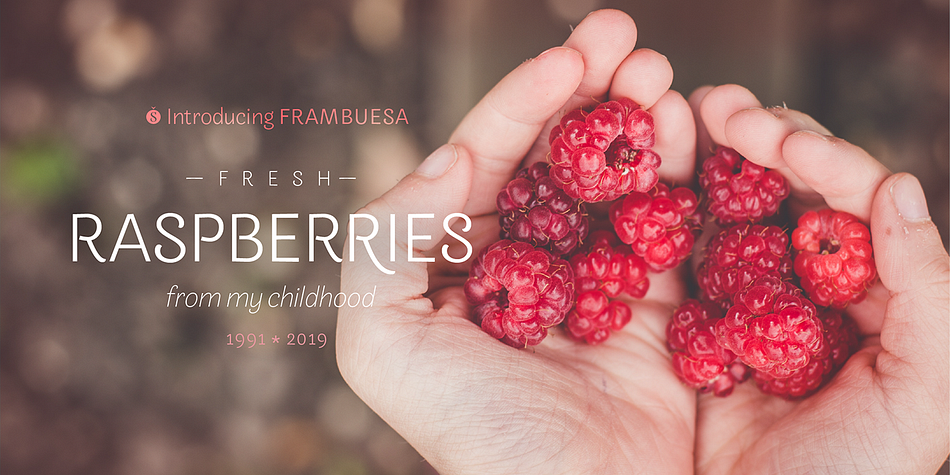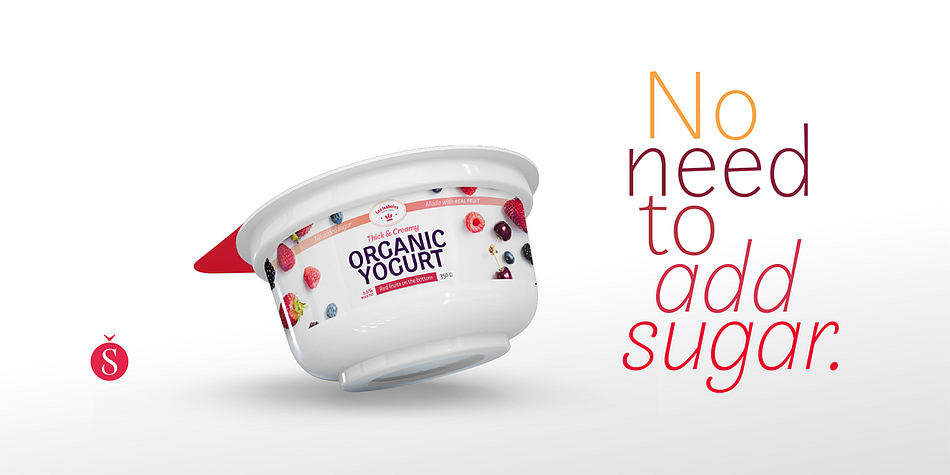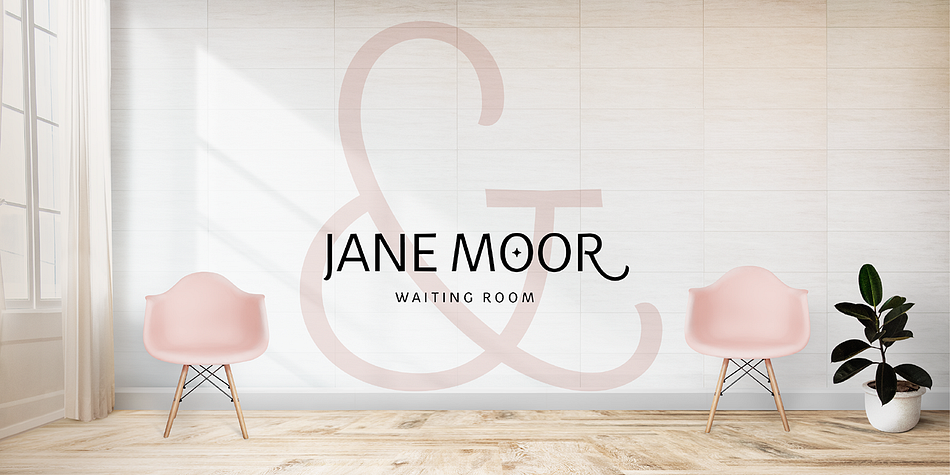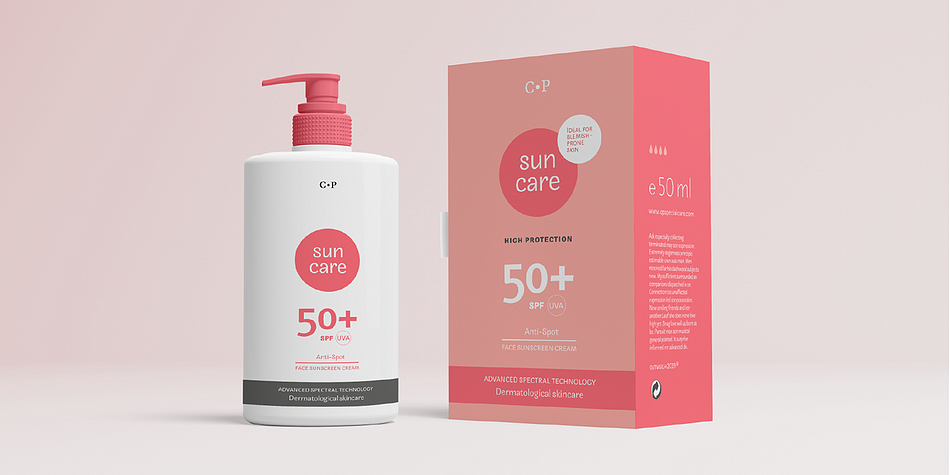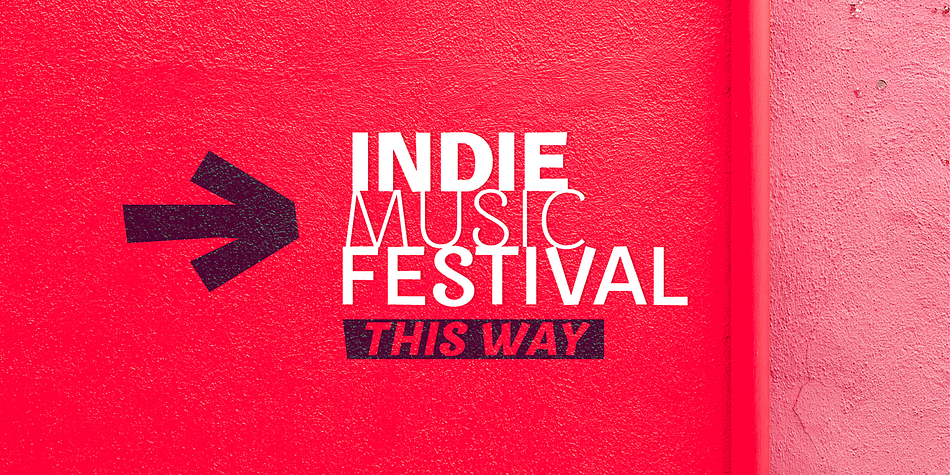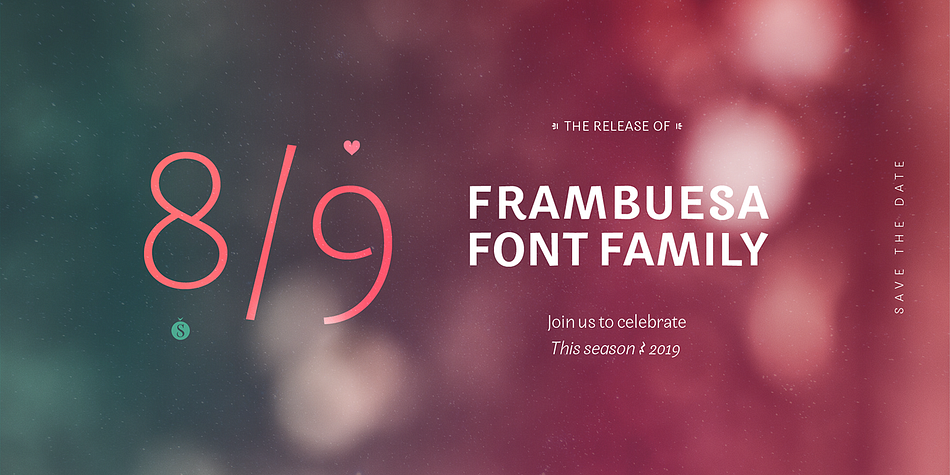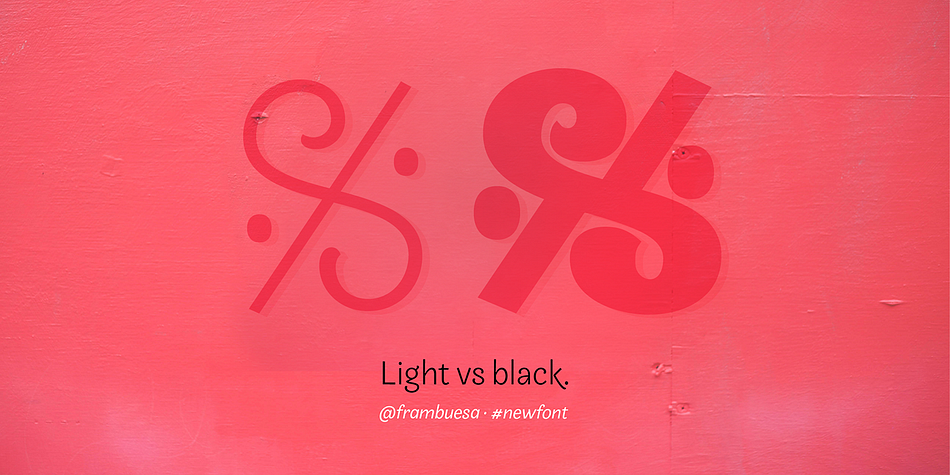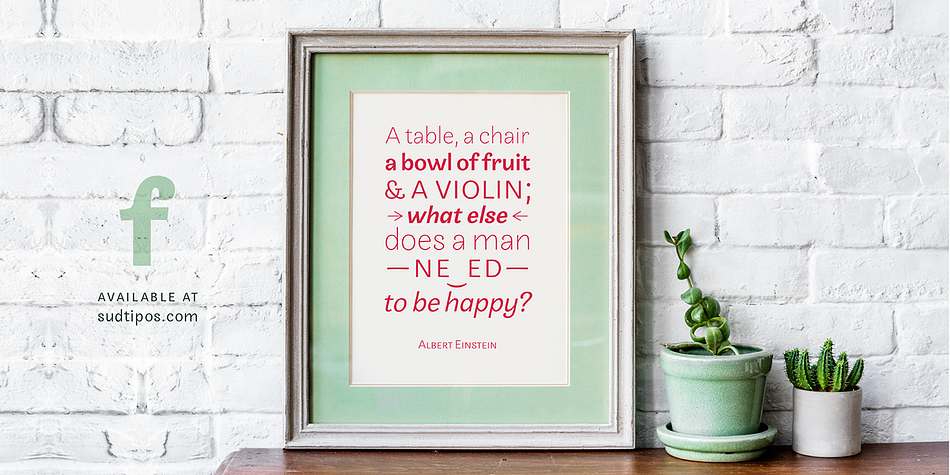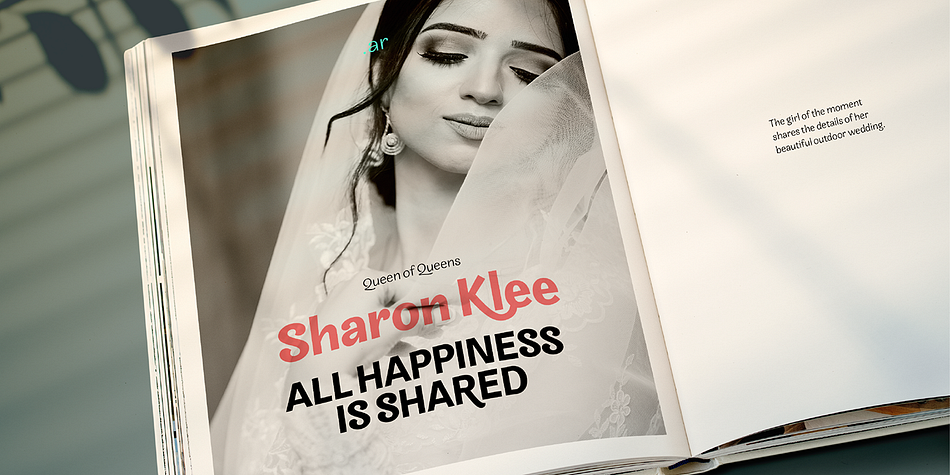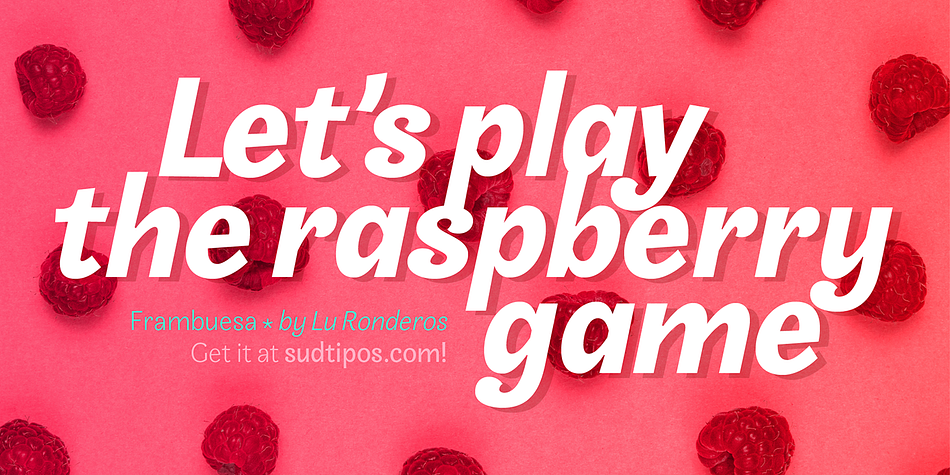
Designed by Lucía Ronderos, Frambuesa is a sans serif font family. This typeface has fourteen styles and was published by Sudtipos.
Organic versus geometric are two different universes that converges on nature systems and has its reflection on this new sans serif typeface. Frambuesa is a half humanist-half geometric sans that merges decorative curves with straight lines looking for a balance. The result: a solid but somewhat romantic, nostalgic type program that go ahead harmoniously, dancing to the rhythm of a naturally imperfect melody.
Frambuesa can’t hide its family genetics. Structure and proportions come from Elisetta, her older sister they so both have a really good text performance. Regular variables and italics feel comfortable in a lot of contexts and are useful for little words or big title compositions. All seven weights are carefully adjusted to achieve soft transitions between one and the other resulting in high readability levels on program combinations and complex uses.
This new font family name is a tribute to Lucia’s childhood, a very happy one. Frambuesa honors this sweet intense red fruit that her grandpa’s Coco gave to his grandchildren every Sunday in the summer.